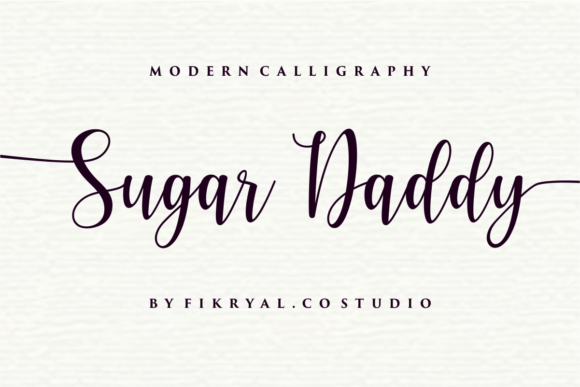
About Sugar Daddy Font
Sugar Daddy feels equally charming and elegant. It looks stunning on wedding invitations, thank you cards, quotes, greeting cards, logos, business cards and every other design which needs a handwritten touch.